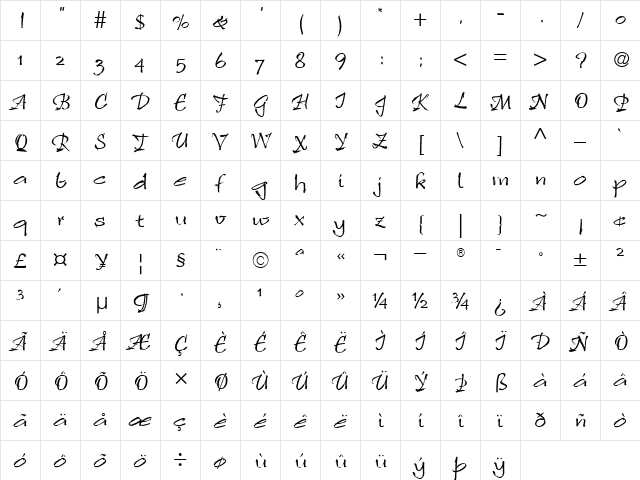
RulingScriptTwo RomanItalic
Design Context for RulingScriptTwo Typeface
RulingScriptTwo brings a calligraphic fluidity to the page — its connecting strokes and expressive curves give it an unmistakably human quality.
Font Pairing: Combine RulingScriptTwo with a simple geometric sans for maximum contrast — the tension between flowing curves and clean structure is a classic typographic pairing.
Pro Tip: Pair RulingScriptTwo with a clean sans-serif for supporting text. The contrast between fluid script and geometric structure creates an elegant typographic hierarchy.